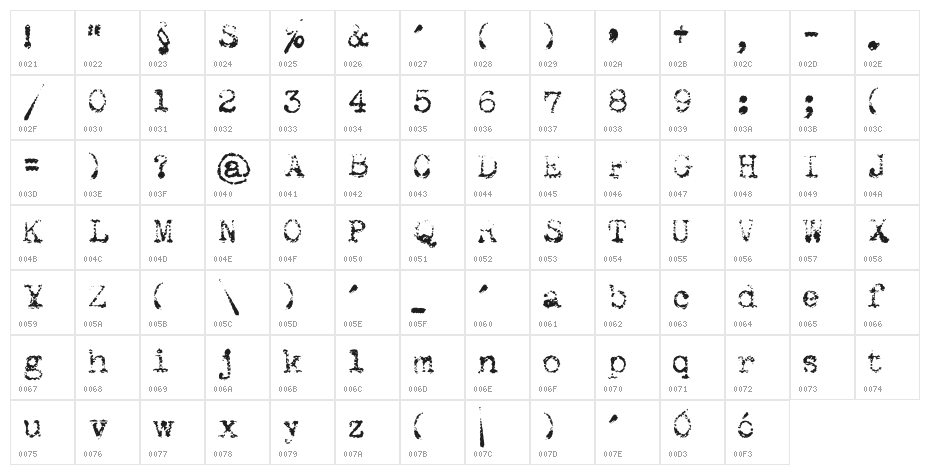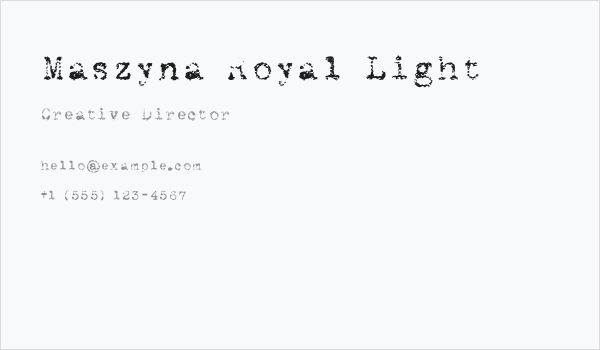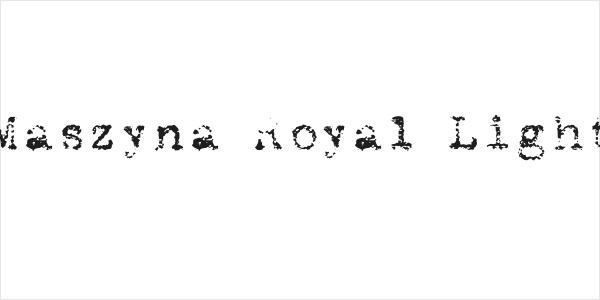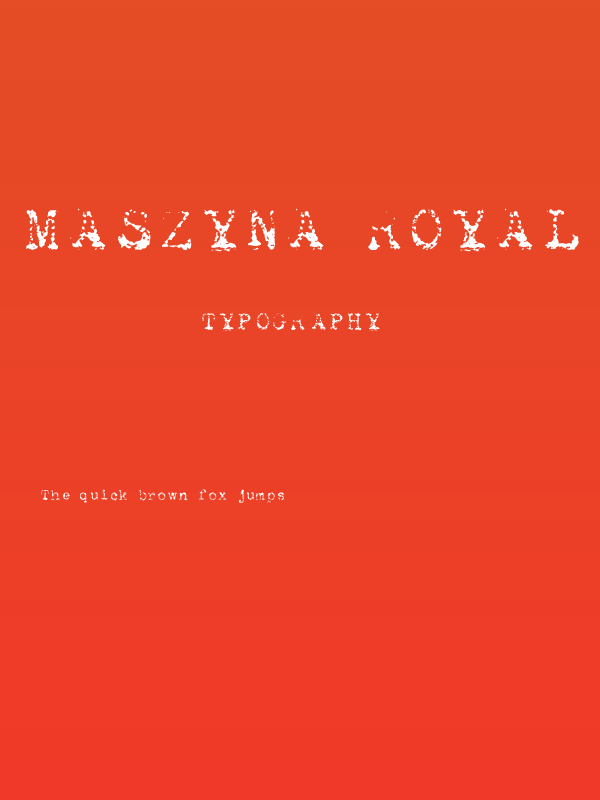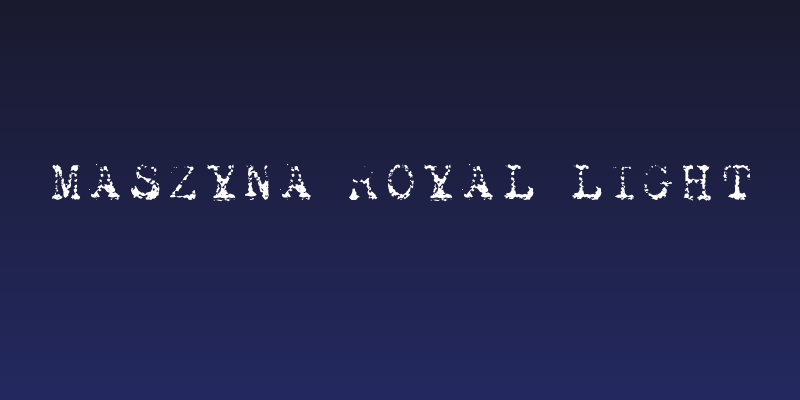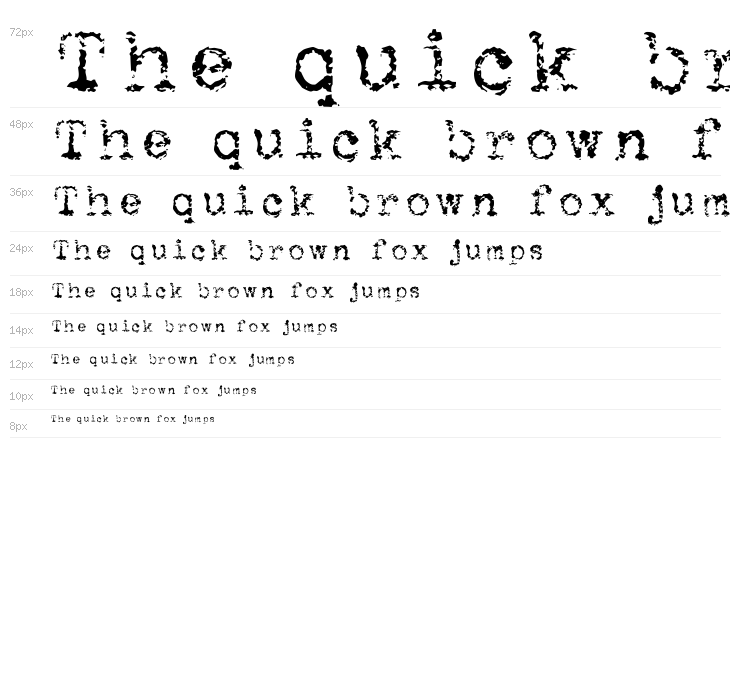
Maszyna Royal Light Font
Maszyna Royal Light Description
This font exhibits a distressed, vintage typewriter style with a textured appearance that mimics ink splatter or wear. Each character is uniquely weathered, giving it an authentic, aged look. The uppercase and lowercase letters maintain a consistent design, with rounded edges and a slightly uneven baseline, enhancing its retro charm. The numerals and special characters follow the same aesthetic, ensuring a cohesive appearance across all glyphs. This font is ideal for projects that require a nostalgic or industrial feel, such as posters, book covers, and branding materials that aim to evoke a sense of history or authenticity.
| Proposed Projects | Ideal for vintage-themed posters, book covers, branding, and any project requiring a nostalgic or industrial feel. |